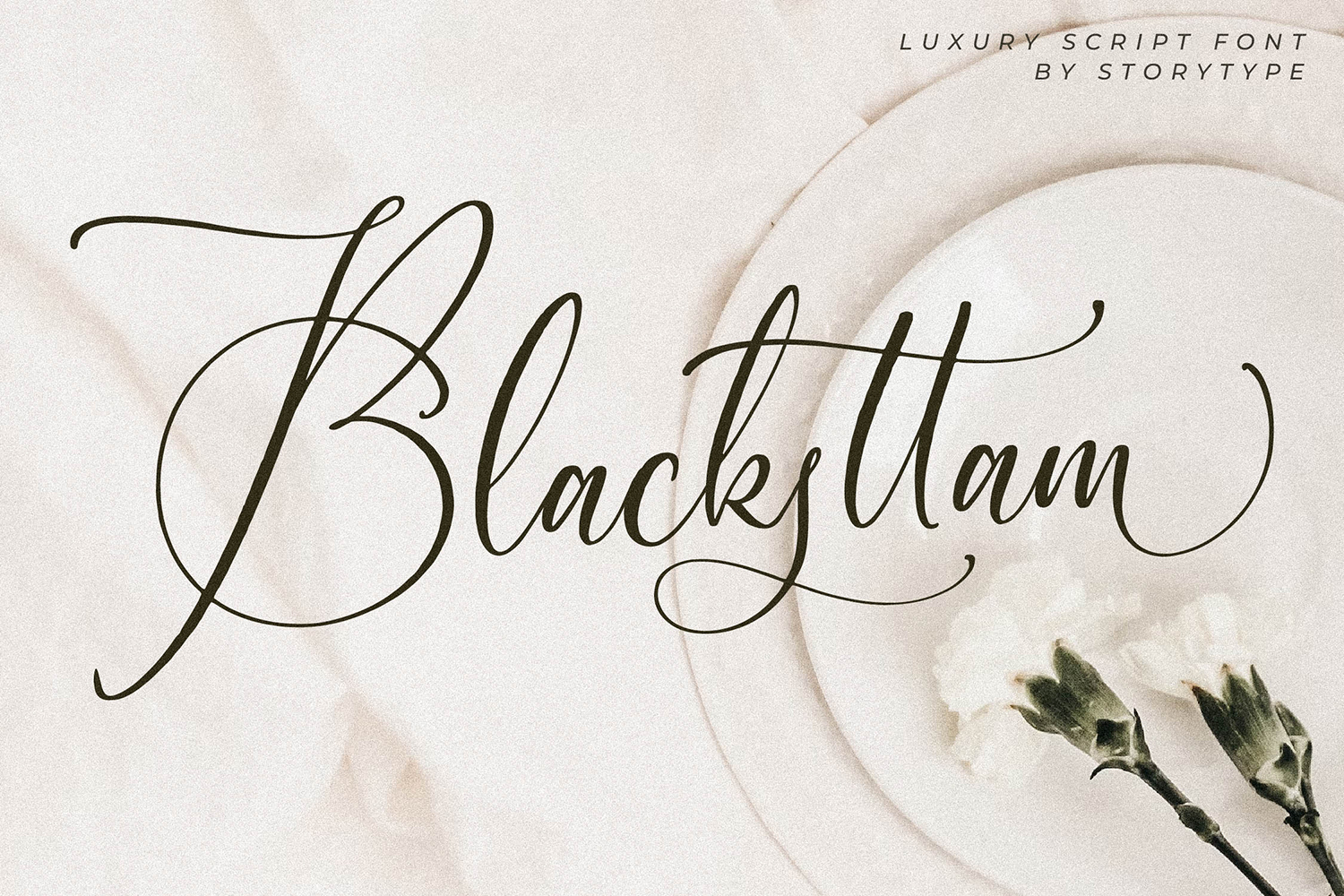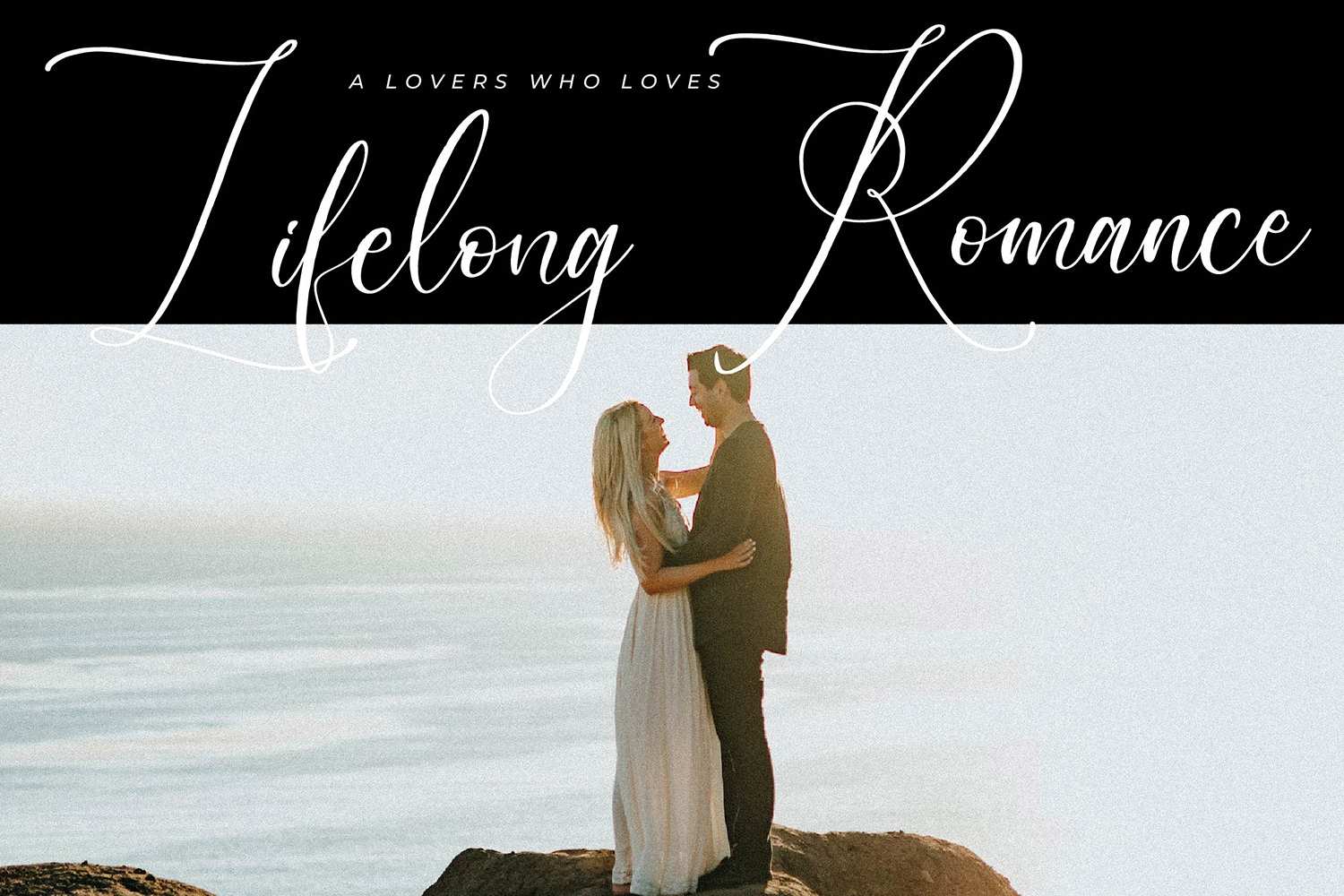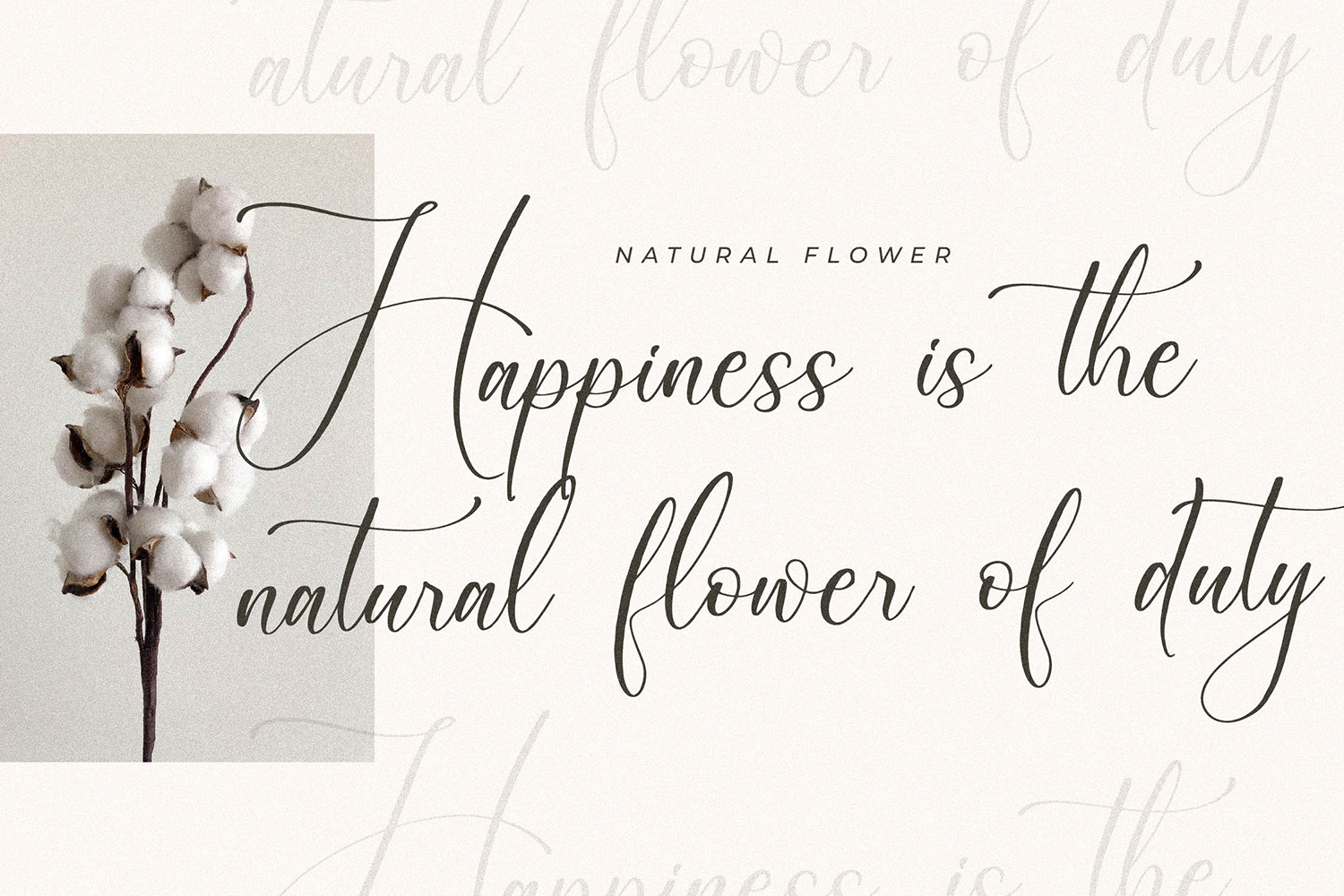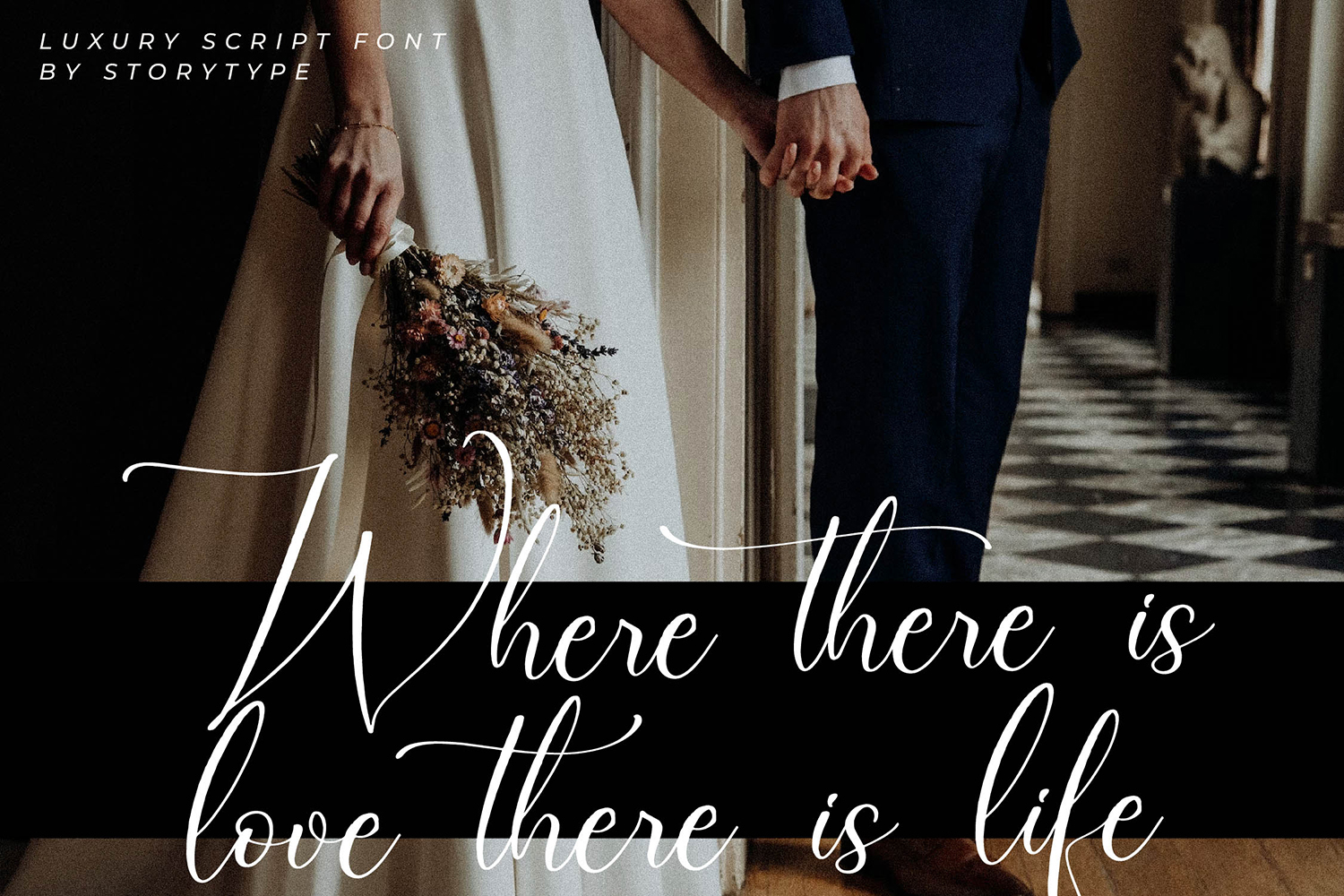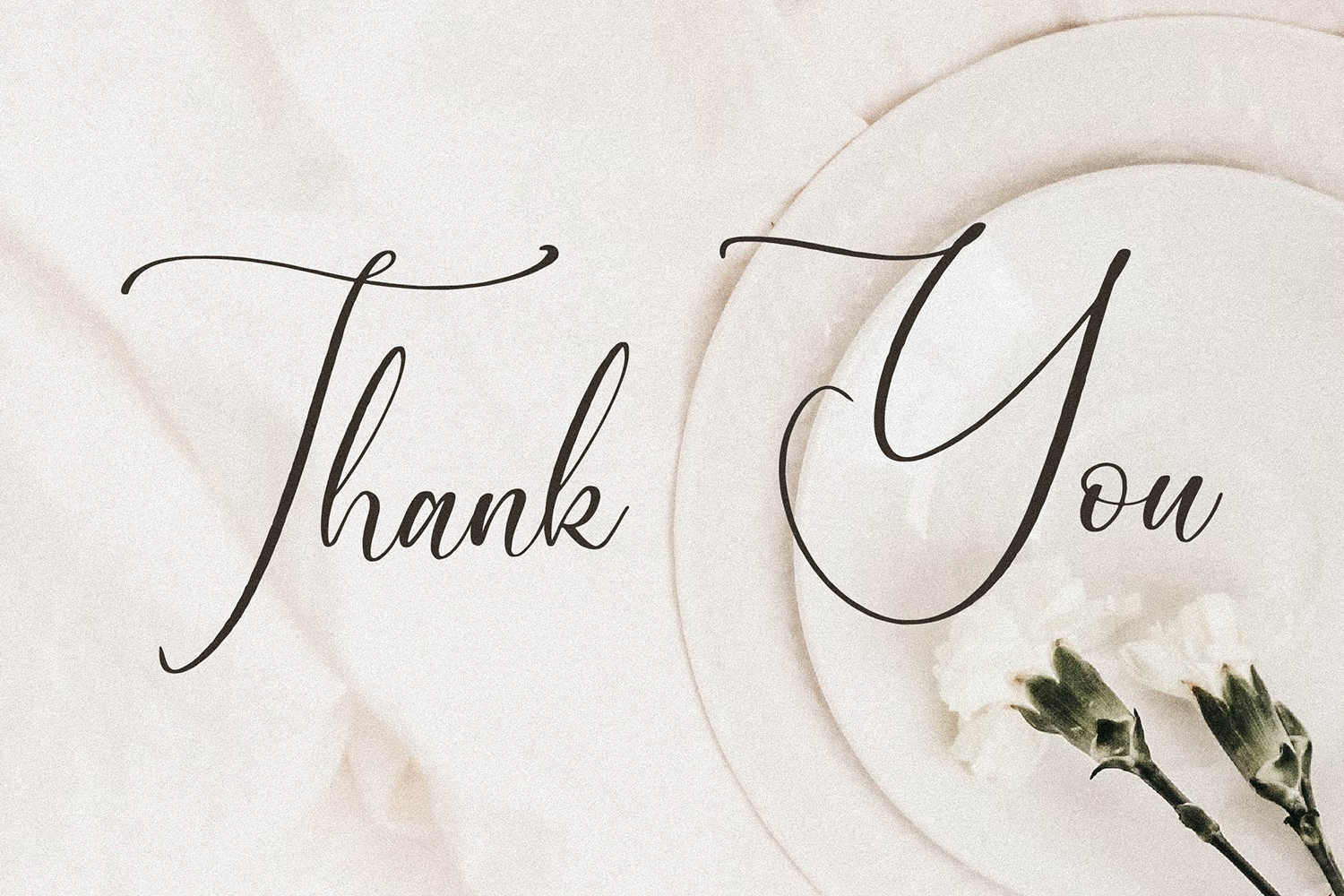
Blacksttam Free Font
Blacksttam Free Font is a lavish script font that showcases a distinctive style and contemporary aesthetic. This typeface exudes a sense of luxury and sophistication, making it a perfect choice for elegant and high-end logos, captivating book or movie title designs, fashion brands, magazines, clothing lines, lettering projects, inspiring quotes, and various other creative endeavors. Blacksttam will elevate your designs to new heights, adding a touch of modernity and refinement. Unleash the potential of Blacksttam to create unforgettable visuals and make a lasting impression. This free typeface was designed by a talented Storytype Studio. If you like it don’t forget to check out the full version.